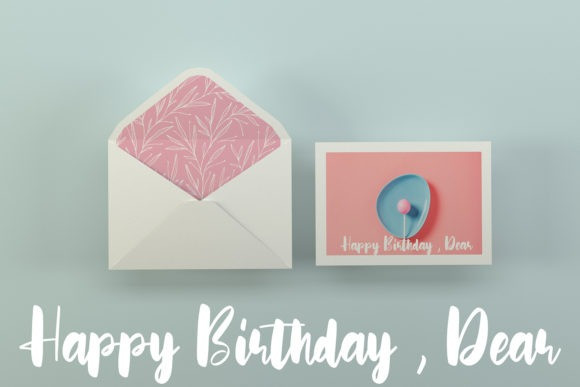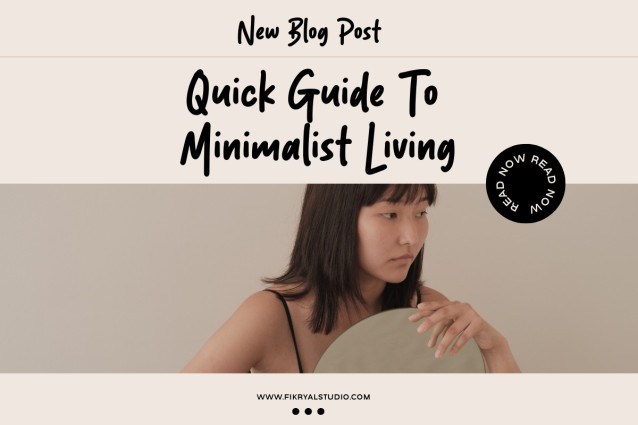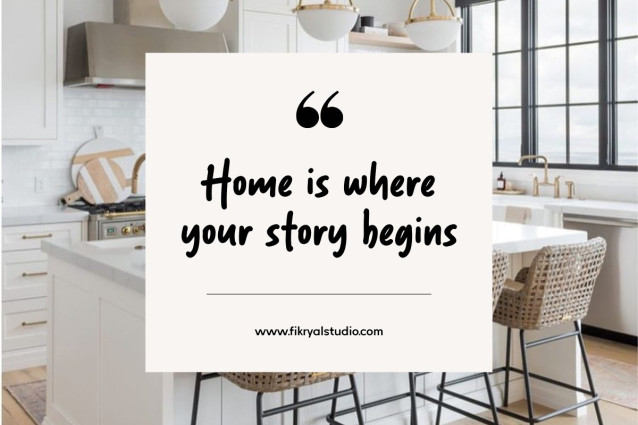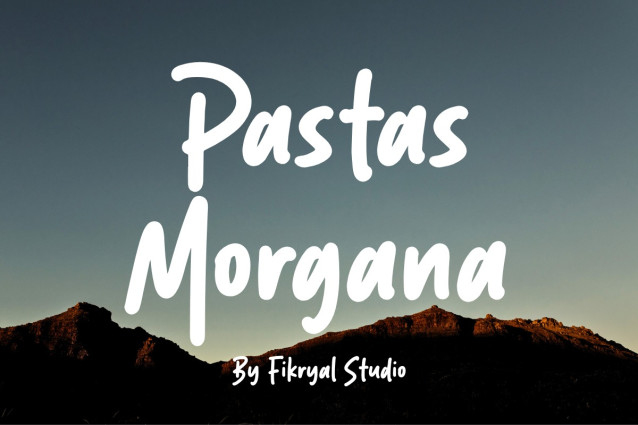
Pastas Morgana Font
Pastas Morgana Font – Handwritten Display Font, a bold and artistic font designed to bring handcrafted personality into your creative projects. With its playful strokes and natural flow, this font adds a unique touch to any design. Whether you’re building a branding identity, product packaging, social media content, advertising, invitations, or merchandise, Pastas Morgana helps your message stand out.